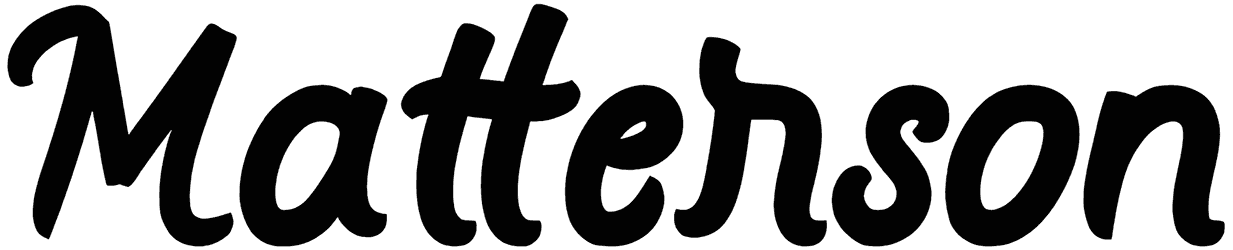
Matterson Font
Adding a touch of individuality to your designs is easy with Matterson, an invitation font. Matterson is perfect for creating invitations, greeting cards, and other projects that require a more personal touch due to its elegant, flowing lines and natural handwriting style.